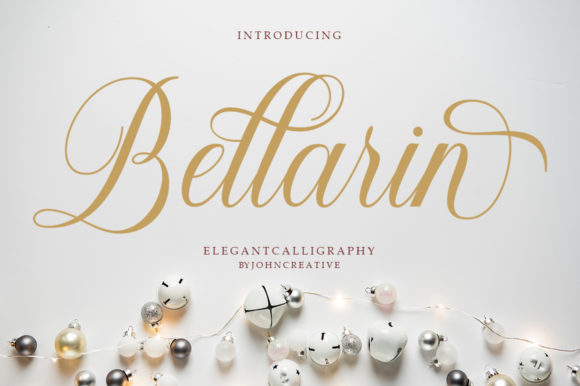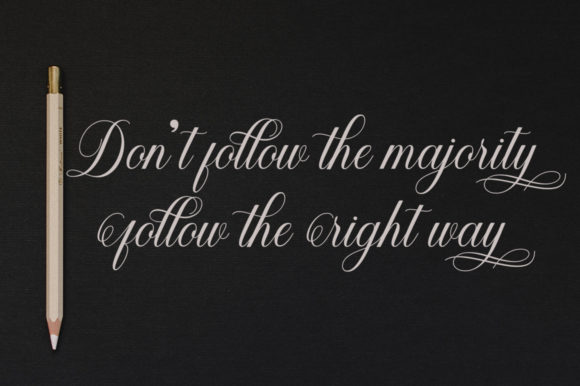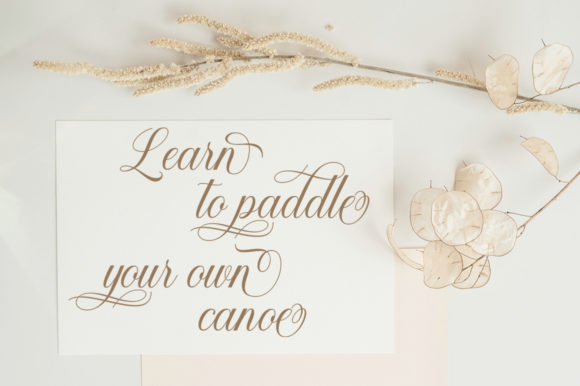
Bellarin
About Bellarin Font
Bellarin feels incredibly elegant and flowing. It looks beautiful on thank you cards, quotes, greeting cards, logos, business cards, and every other design which needs a personalized touch. It features a varying baseline, smooth lines, gorgeous glyphs, and stunning alternates.